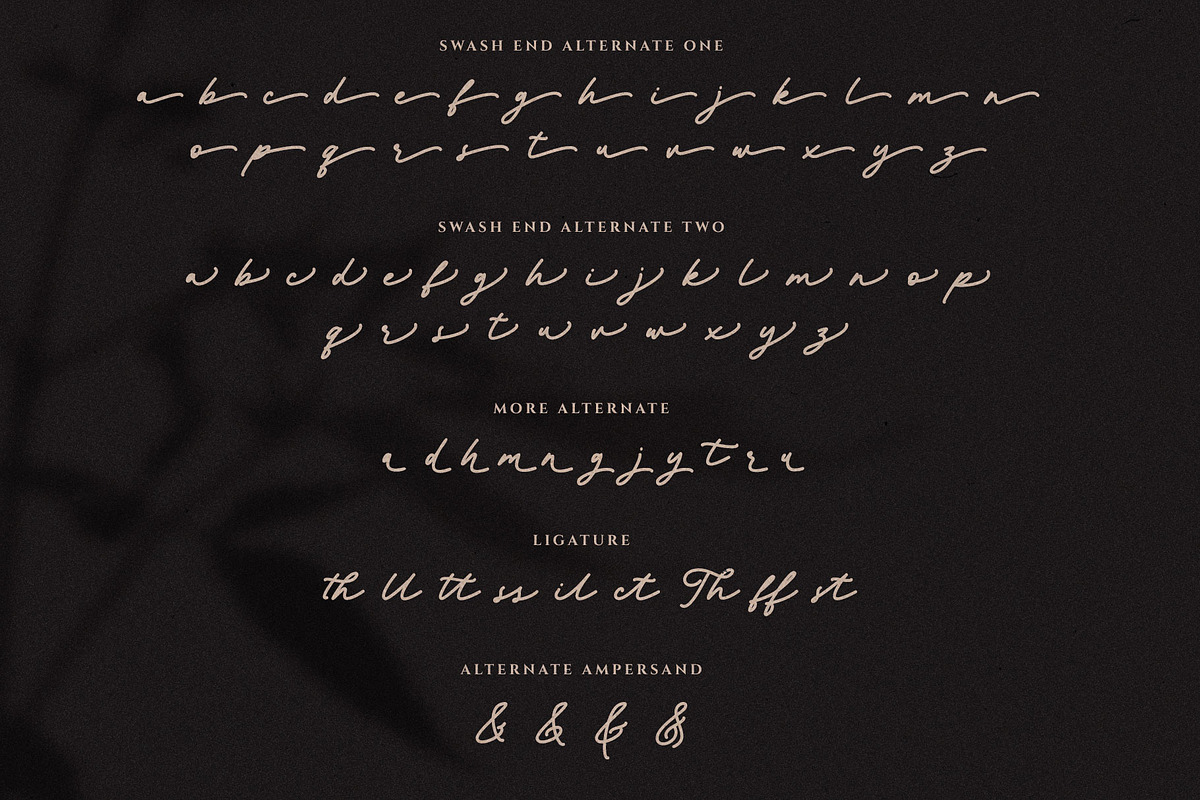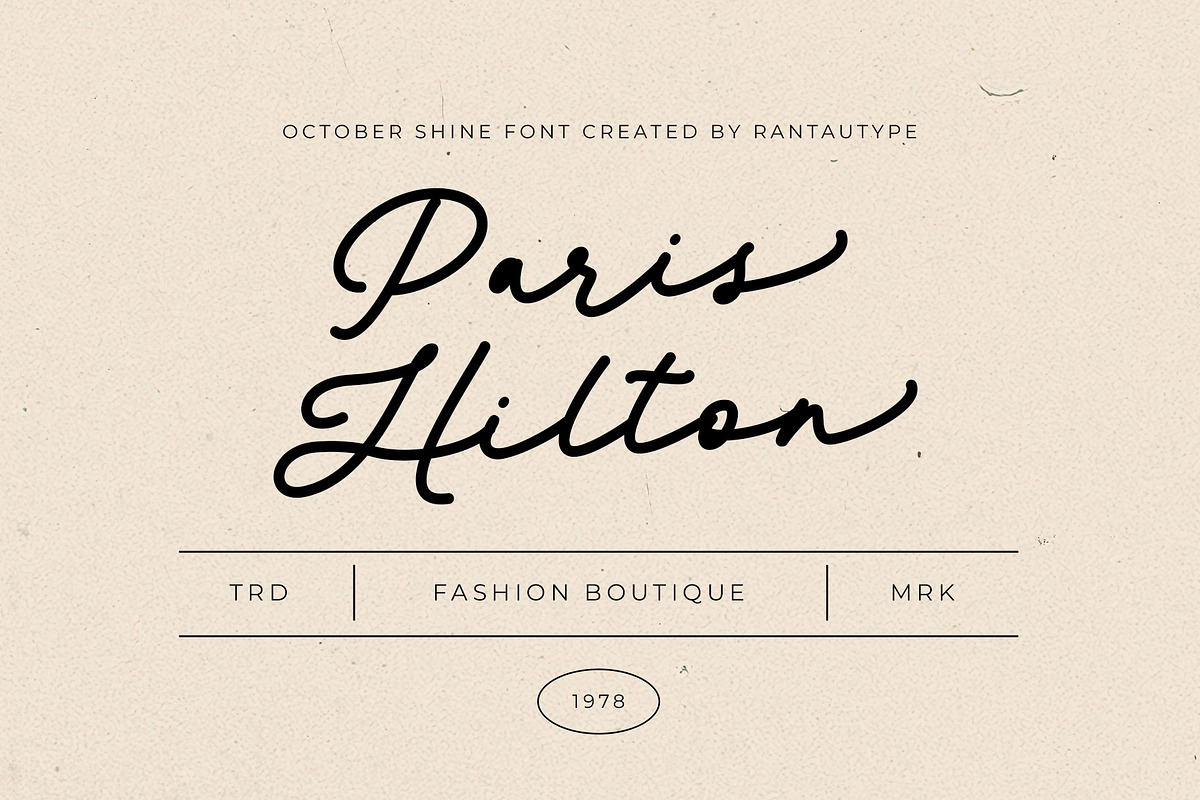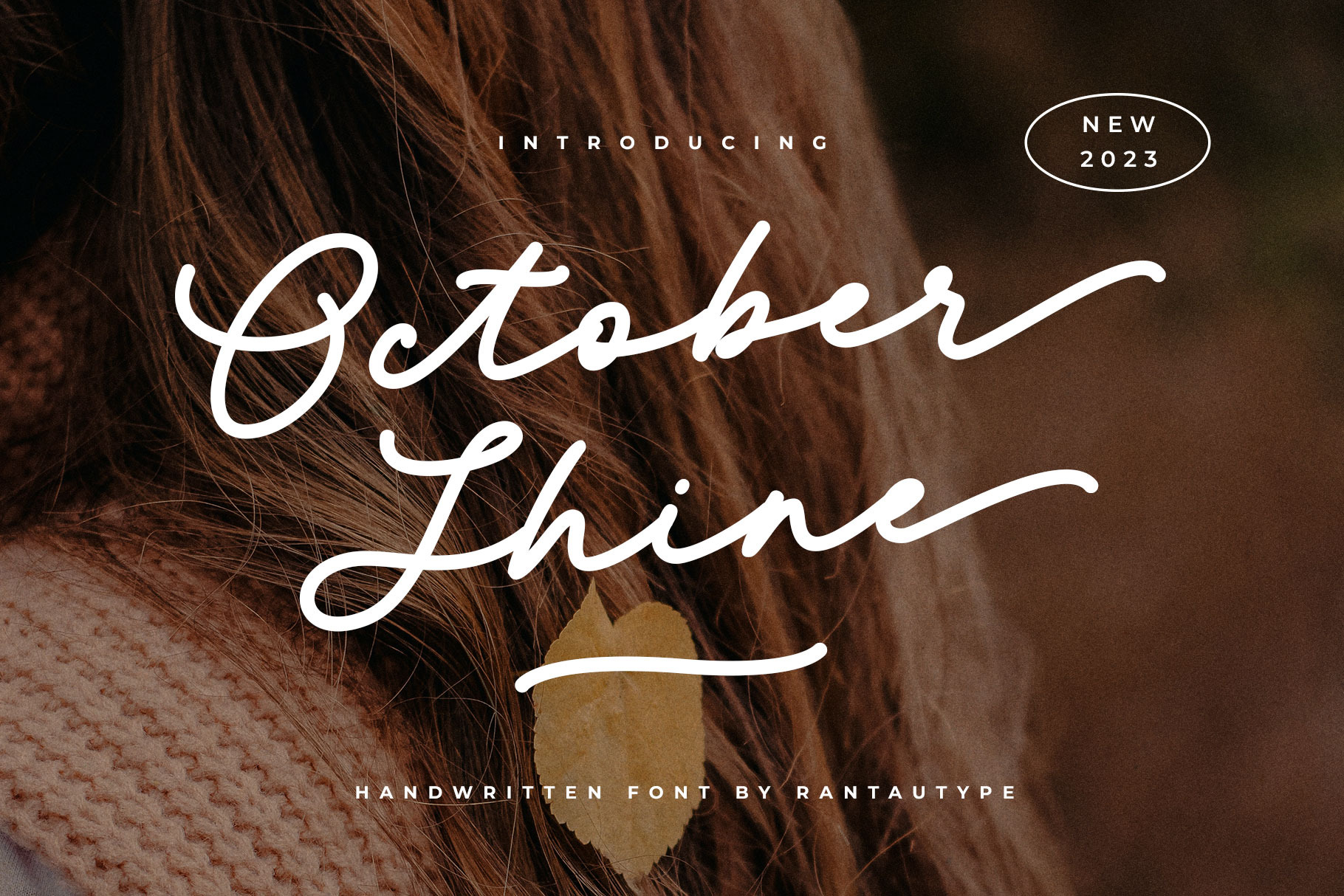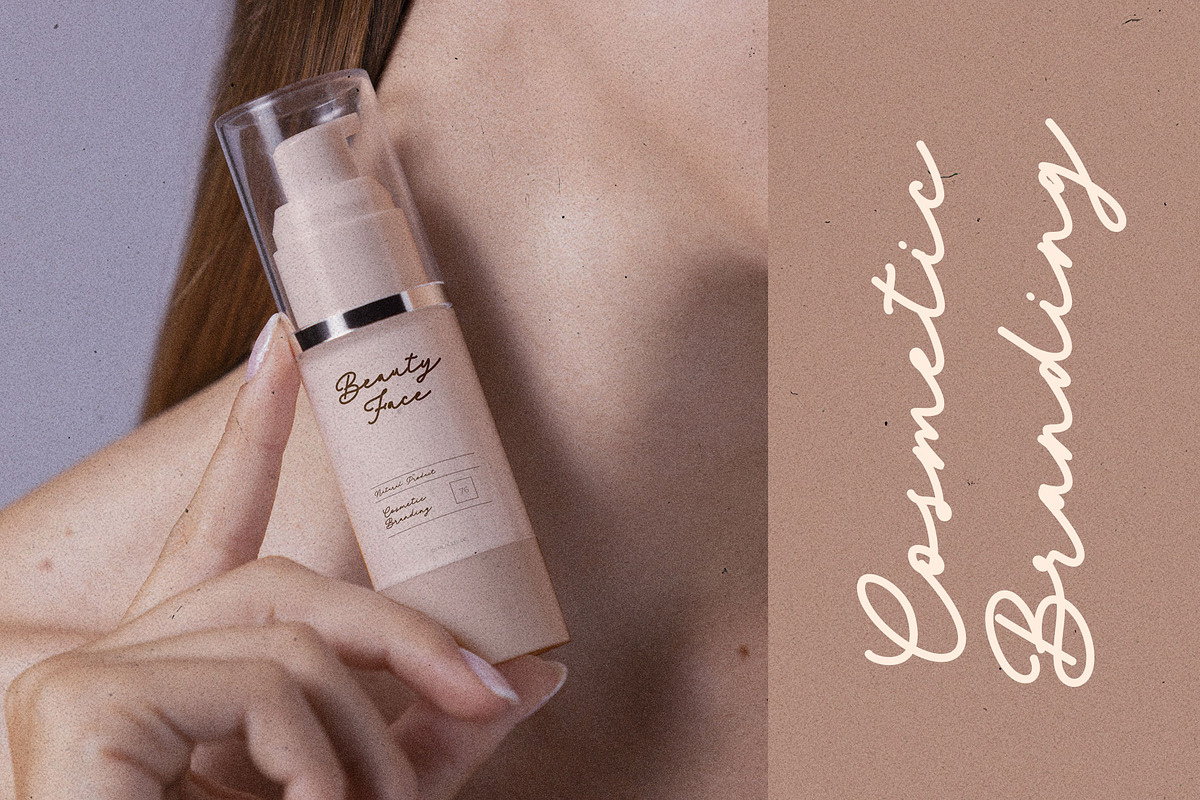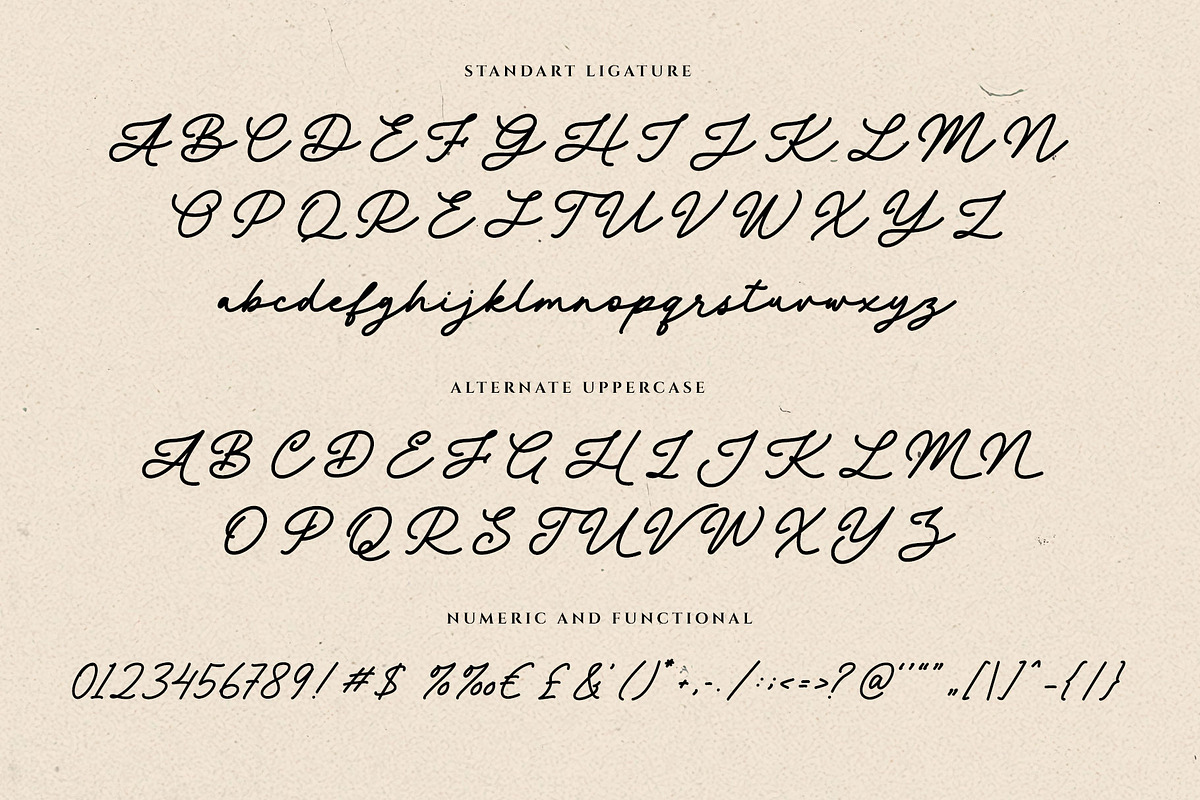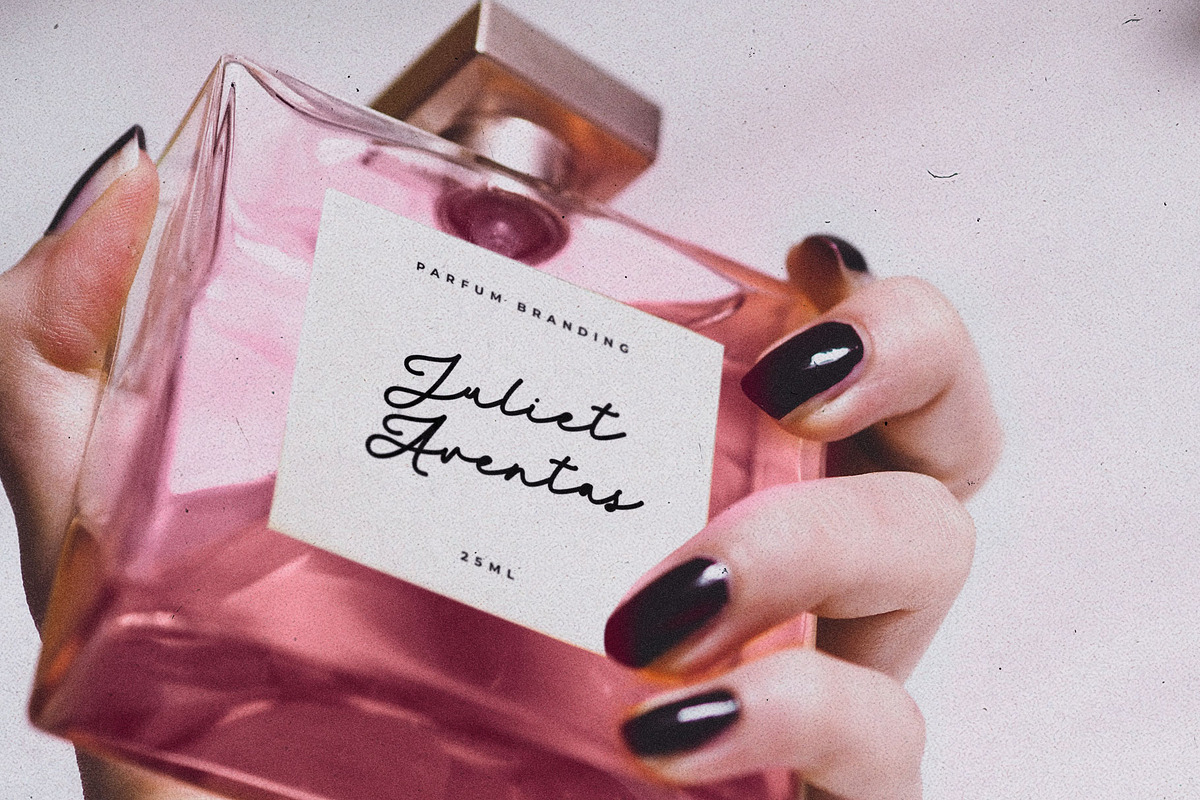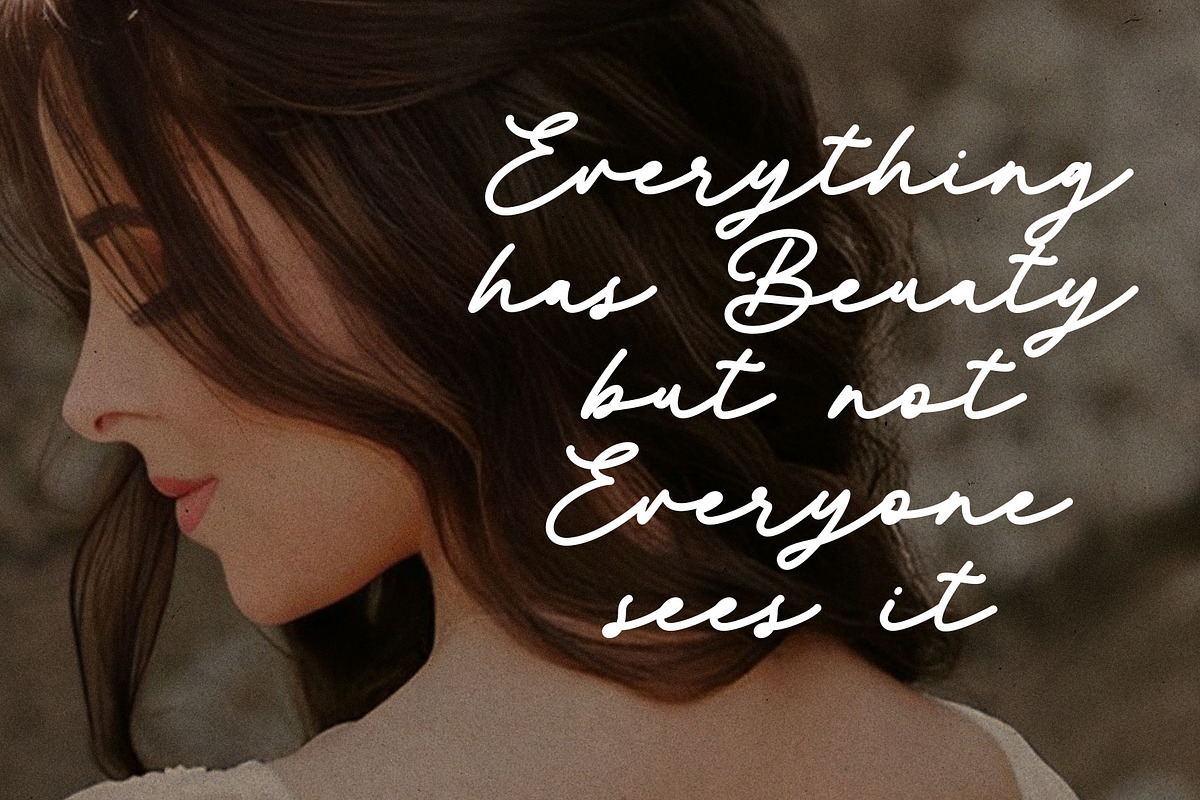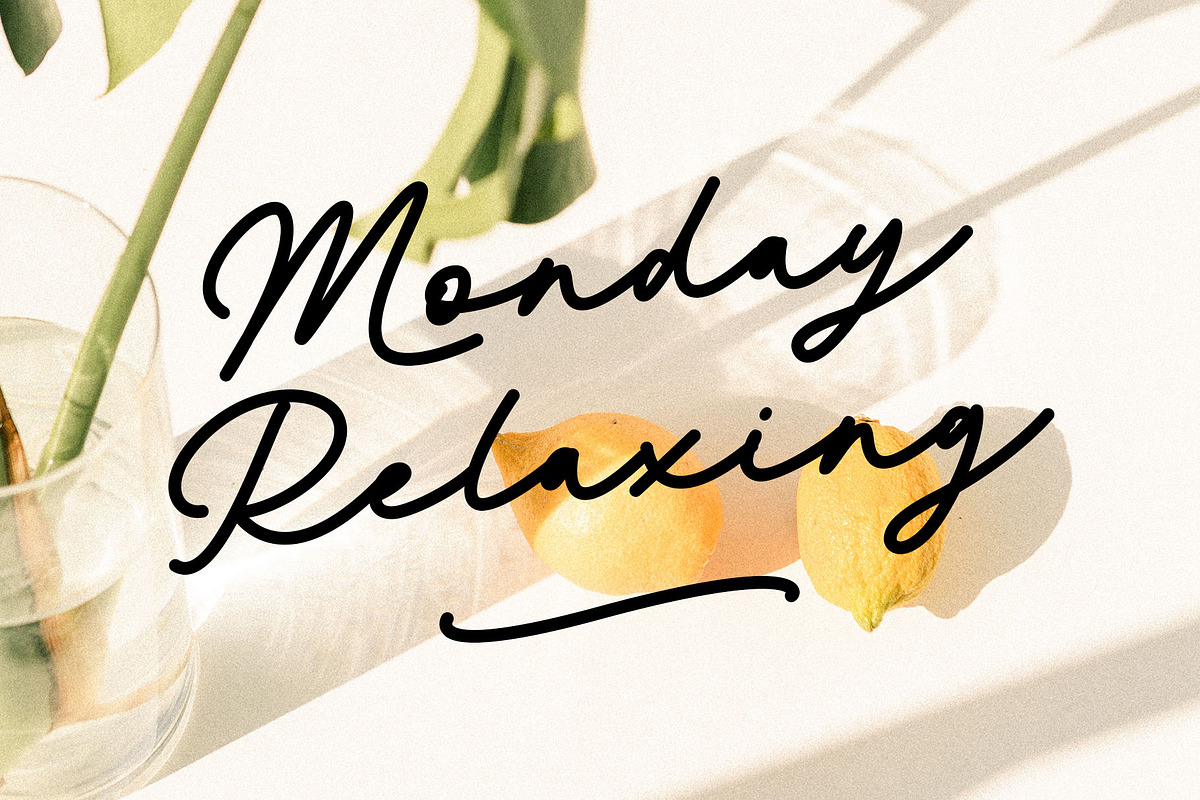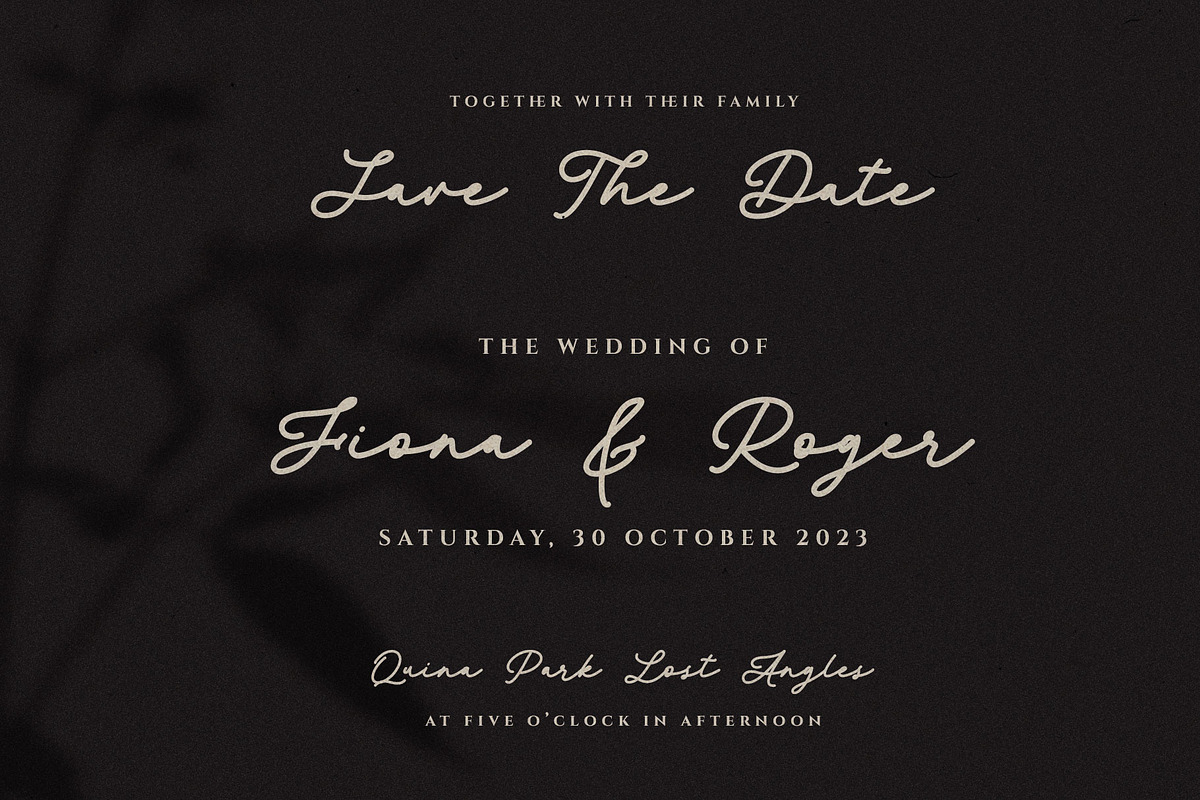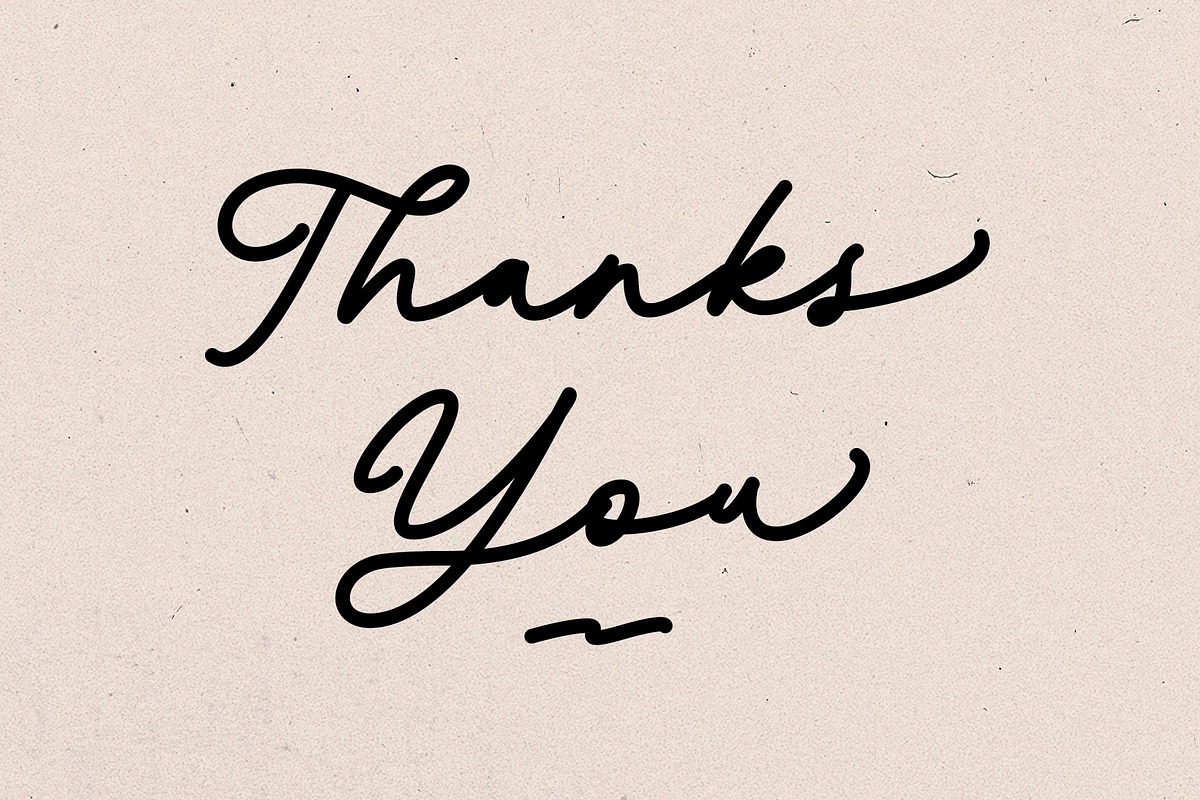
October Shine Monoline Font
October Shine - modern style font which can be interpreted professional. We make this font more alternate so you can mix in you project. We keep this font looks modern, readable, stylish, feminine, girly, catchy and easy to use. October shine also include multinggual support.
October Shine - is the great choice for watermark on photography, branding, wedding event, signature or signature logo design, quotes, album cover, magazine, business card and many other design project. October Shine here to make your work to high level!!!
- Standar character A-Z and a-z
- Ligature and Alternate
- Multilinggual support